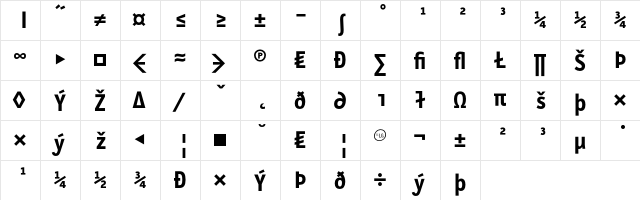
LetterGothicMono BoldExpert
Design Context for LetterGothicMono Typeface
LetterGothicMono uses fixed-width spacing throughout, giving it the structured, systematic character associated with coding environments and technical documentation. Its bold stroke weight gives it real presence on the page.
A natural fit for code editors, technical documentation, developer-focused branding, and terminal-inspired UI.
Pro Tip: Pair LetterGothicMono with a proportional sans for UI contexts where code-style labels and regular body copy need to coexist.